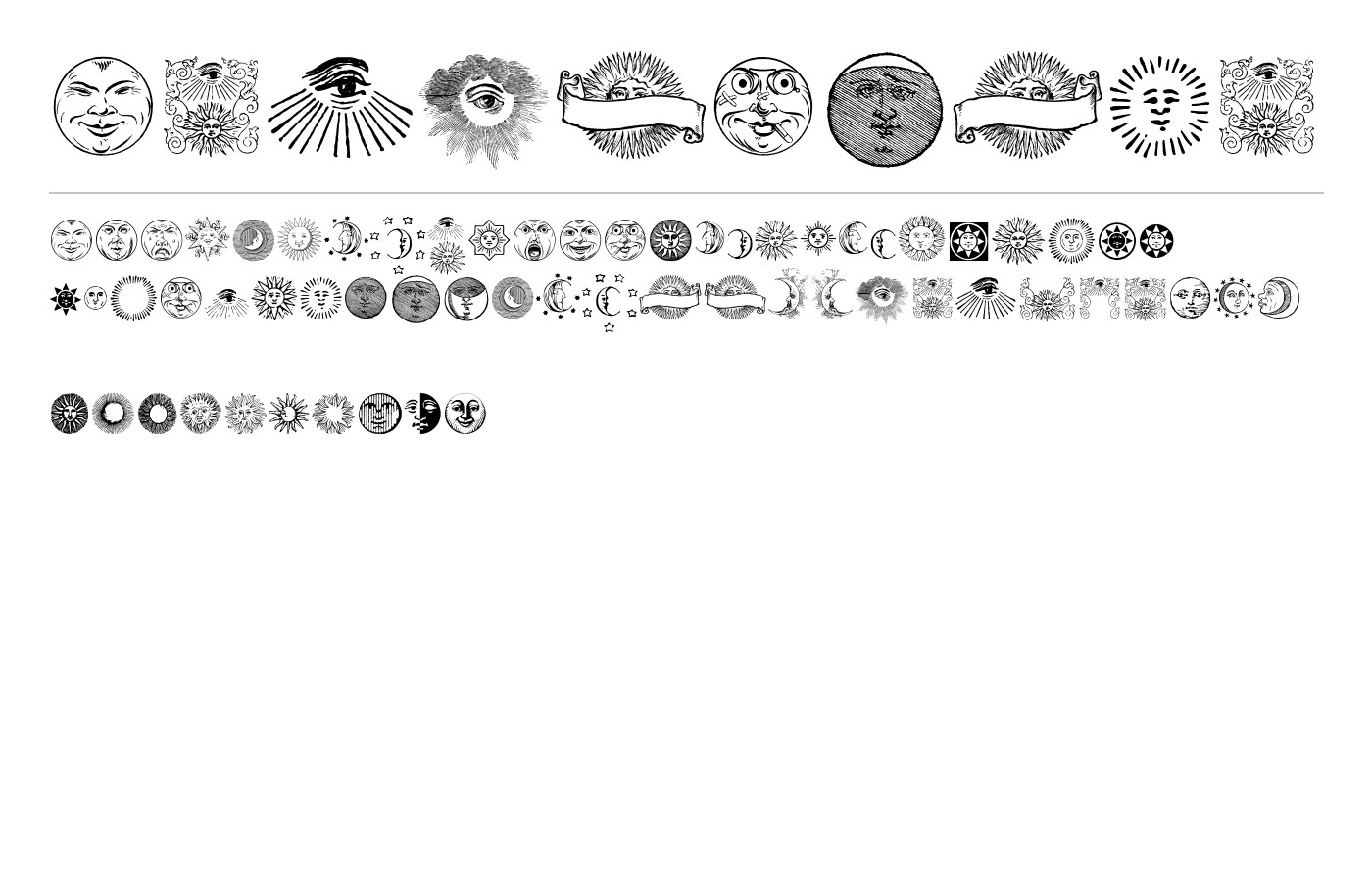
Astrodings is a decorative dingbat font featuring intricately detailed celestial and astrological symbols, including stylized suns, moons, stars, and cosmic eyes. This unique collection of vintage-inspired icons adds a mystical, whimsical charm, perfect for designs seeking a touch of old-world magic or cosmic elegance. Ideal for branding, packaging, or editorial projects with a mystical or retro theme, Astrodings brings an enchanting, illustrative quality that captures attention and sparks imagination.
Astrodings Font
About Astrodings Font
| Font family | Astrodings Font |